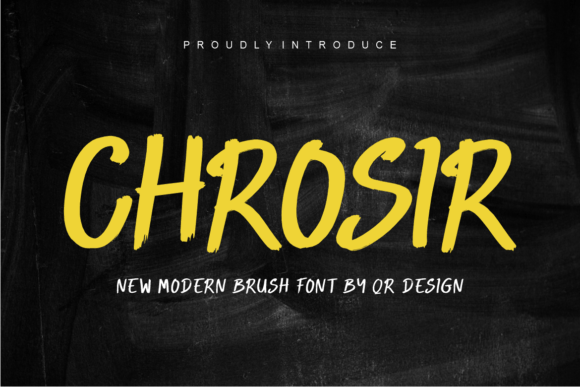
Dive into the world of captivating visuals and dynamic aesthetics with Chrosir Font, a display font that redefines the boundaries of creativity. This bold and authentic masterpiece, crafted by qrdesignstd, is a visual symphony that will elevate your projects to new heights.
Chrosir Font is not just a font; it's an experience. Its meticulously designed characters dance across the screen, demanding attention and leaving a lasting impression. Whether you're a seasoned designer or a novice seeking to make a statement, Chrosir Font is your ultimate weapon.
Harness the power of Chrosir Font to create logos that command attention, t-shirt designs that speak volumes, and e-sport graphics that ignite the competitive spirit. With its diverse range of applications, Chrosir Font is your versatile companion in the realm of visual storytelling.
Step into the arena of gaming videos and let Chrosir Font be your secret weapon. Its bold strokes and energetic curves perfectly capture the essence of adrenaline-fueled gameplay. Create captivating thumbnails, titles, and overlays that draw viewers in and leave them craving more.
Chrosir Font is more than just a collection of letters; it's an invitation to embark on a journey of creative expression. Its versatility knows no bounds, allowing you to weave your imagination into reality. Unleash your creativity and let Chrosir Font guide you towards visual greatness.
Embrace the allure of Chrosir Font and elevate your projects to new heights. Its bold and authentic style will leave an unforgettable mark on your audience, ensuring that your message resonates with power and impact. Join the ranks of those who dare to be different and let Chrosir Font ignite your creative spirit.